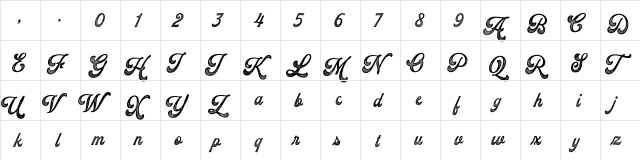
Batrider Textured
| Foundry | Runsell Studio |
| Designer | Satia Hayu P |
Batrider trades polish for personality, using distressed and eroded forms to bring grit and attitude to creative work.
A strong fit for alternative music projects, graffiti-adjacent design, and anything that deliberately resists polish.
Pro Tip: Use Batrider at larger sizes where the texture and irregularity of each letterform can be clearly seen — it loses its character at small sizes.